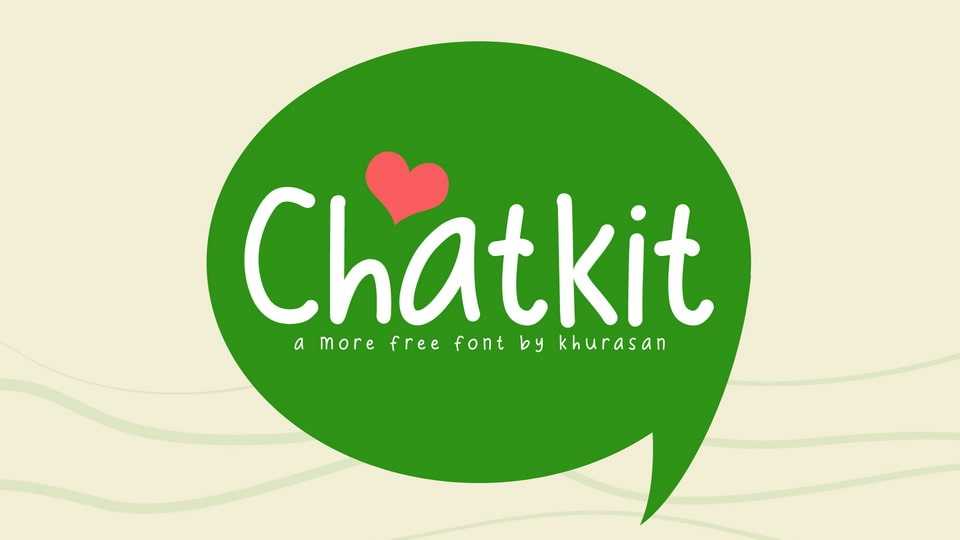
Download Chatkit font, a handwritten typeface that emulates the look of handwritten messages in speech bubbles. Chatkit font is your go-to choice for designs that aim to bridge the gap between the digital and comic worlds.